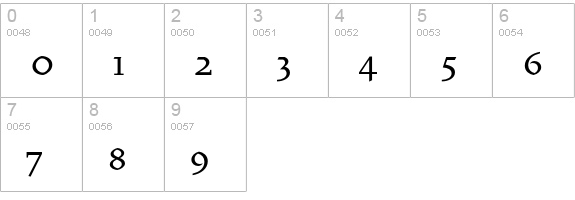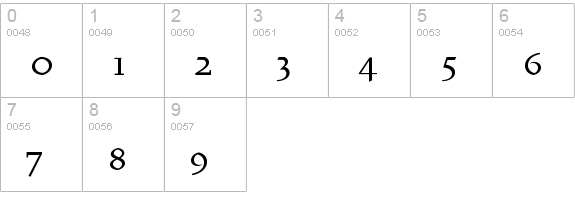
VendettaMediumSmallCaps Font Details
VendettaMediumSmallCaps is a captivating font that exudes a sense of mystery and intrigue. With its bold and daring design, this font is perfect for adding a touch of excitement to any project. The small capital letters give it a unique and sophisticated look, making it ideal for headlines, logos, and branding materials. This font is not only visually stunning but also incredibly versatile. Whether you're creating a poster for a film noir-inspired event or designing a sleek and modern website, VendettaMediumSmallCaps will effortlessly elevate your design to the next level. And the best part? VendettaMediumSmallCaps is available for free! You can easily download this font from FontsMarket.com, a trusted source for high-quality fonts. So why wait? Add a touch of elegance and intrigue to your designs with VendettaMediumSmallCaps, and watch as it captivates your audience.